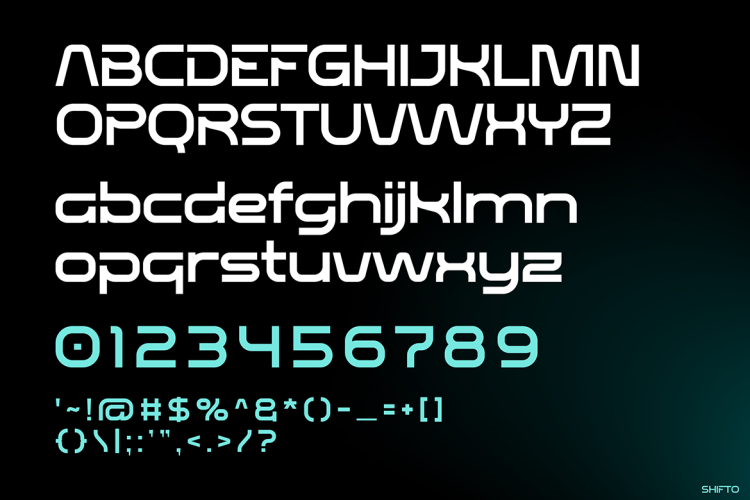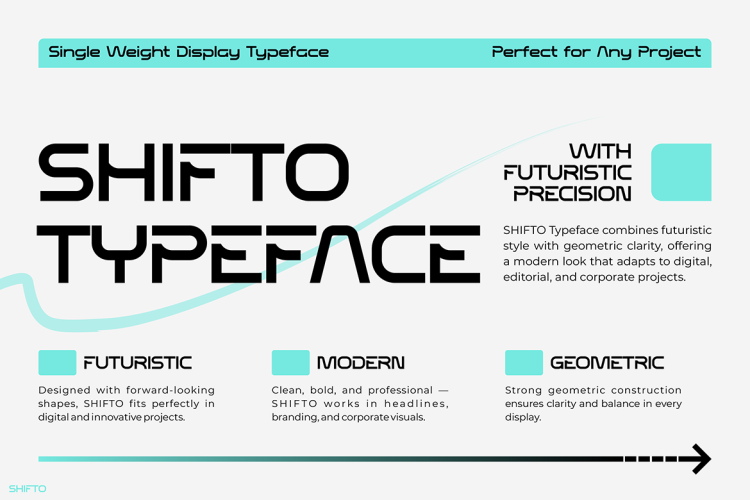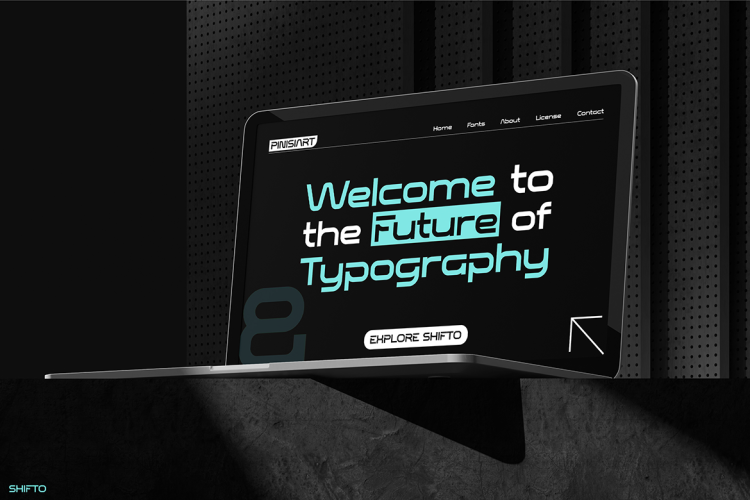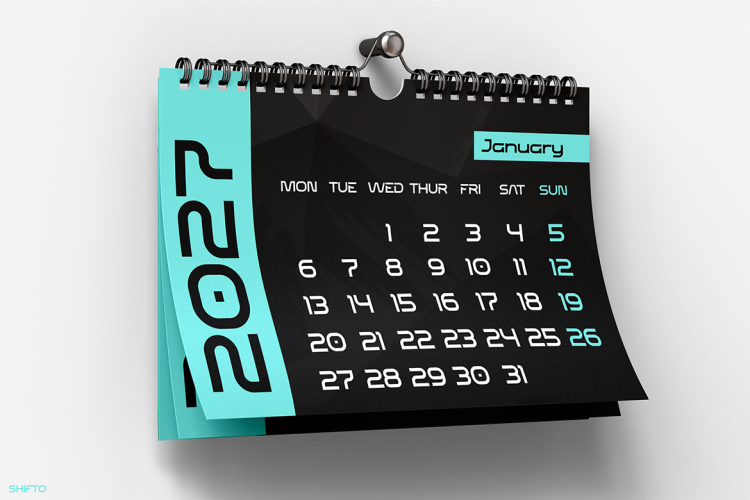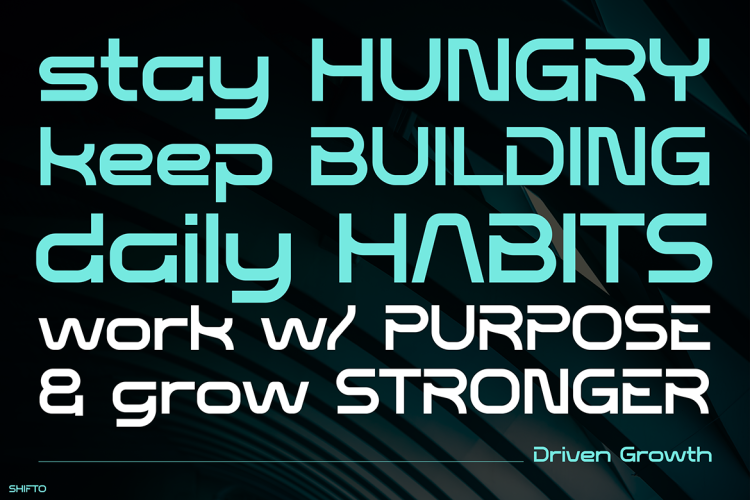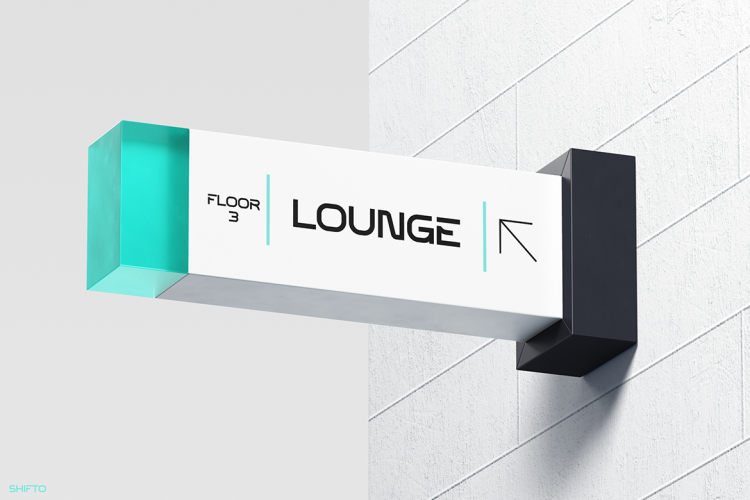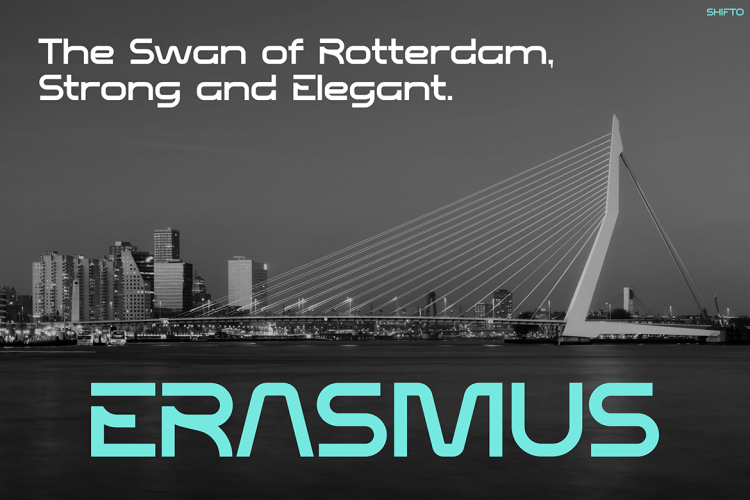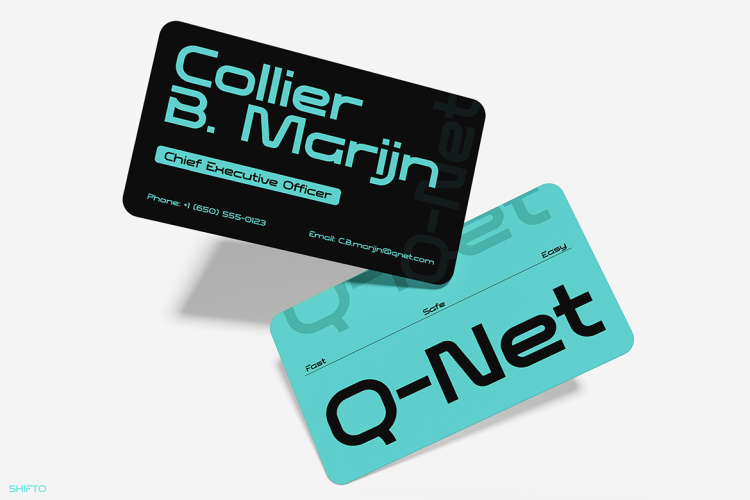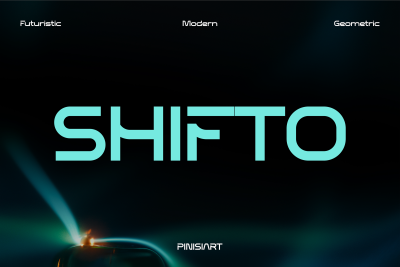
Sport Font SHIFTO is not just another typeface. Instead, it is a bold statement of modern design and futuristic spirit. With its geometric structure, sharp edges, and dynamic letterforms, this font combines strength with easy readability. Moreover, its balanced shapes make it both functional and stylish. As a result, your projects will radiate confidence and motion.
In addition, the design blends sports-inspired energy with tech-driven elegance. Each letter carries a sense of movement, making it ideal for projects that demand attention. The bold forms highlight power, while the clean curves add clarity. Therefore, whether you are designing posters, digital ads, or branding materials, Sport Font SHIFTO delivers an instant modern, powerful, and stylish touch.
Sport Font SHIFTO Perfect for Designers, Brands, and Creators
Sport Font SHIFTO is the right choice for graphic designers, digital marketers, sports brands, tech startups, and creative entrepreneurs. In particular, its futuristic look works well for logos, packaging, social media, signage, and event promotions. Furthermore, fitness influencers, esports teams, and lifestyle brands can use it to project strength, speed, and innovation.
On the other hand, this font is not limited to specific industries. It also suits editorial layouts, futuristic presentations, and digital interfaces. Consequently, it adapts to many creative needs, from bold headlines to stylish typography for campaigns. Designers who want to stay ahead of trends will find SHIFTO a reliable and flexible tool.
If you want a font that combines modern aesthetics with practical versatility, then SHIFTO is the ultimate choice. It does more than decorate your work. Instead, it transforms every project into a powerful visual experience. In addition, its futuristic edge ensures your message captures attention immediately.